Choosing the right font for your presentation can make a world of difference in engaging your audience and conveying your message effectively. With so many options to choose from in Canva, it can be overwhelming to know where to start. In this guide, we’ll explore the best Canva fonts for presentations that will help you captivate your audience and leave a lasting impression. From classic serif fonts to modern sans serifs, we’ll help you find the perfect typography to enhance your next presentation.
Selecting the Perfect Canva Font for Your Presentation
Choosing the right font for your presentation can make a huge difference in how your message is received. When selecting a font in Canva for your presentation, consider the following factors:
- Readability: Ensure that the font is easy to read and understand, especially from a distance.
- Consistency: Use one or two fonts throughout your presentation to maintain a cohesive look.
- Alignment: Make sure that the font you choose aligns with the overall theme and message of your presentation.
In addition to these factors, consider the style and tone you want to convey with your presentation. Are you aiming for a formal and professional look, or a fun and creative vibe? Play around with different fonts in Canva to find the perfect match that resonates with your audience and enhances your message effectively. Remember, the right font can elevate your presentation and make it more engaging and memorable for your audience.
Choosing Serif Fonts for a Professional Look
Serif fonts are an excellent choice when aiming for a professional and polished look in your design work. The timeless elegance and sophistication of serif fonts make them a popular choice for conveying professionalism in various contexts.
When selecting a serif font for a professional look, consider factors such as readability, versatility, and compatibility with your brand. Opt for serif fonts that are easy to read and visually appealing, as this will help create a positive impression on your audience. Additionally, choose fonts that can be used across different mediums and platforms to maintain a consistent and cohesive brand identity.
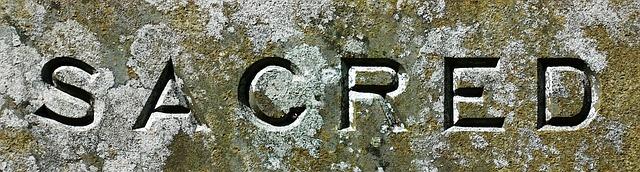
Exploring Sans Serif Fonts for Modern and Clean Presentations
Sans serif fonts are a popular choice for modern presentations due to their clean and sleek appearance. When exploring sans serif fonts, it’s essential to consider their readability, versatility, and overall aesthetic. Opting for a sans serif font can give your presentation a contemporary feel, making it visually appealing to your audience.
When selecting a sans serif font for your presentation, look for options that are easy to read, even from a distance. Fonts like Arial, Helvetica, and Calibri are popular choices for their simplicity and clarity. Additionally, consider experimenting with less common sans serif fonts like Gotham, Proxima Nova, or Montserrat for a more unique and personalized touch. Remember that consistency is key when using fonts in a presentation, so choose one or two sans serif fonts to maintain a cohesive look throughout your slides. Experiment with font sizes, bolding, and italicizing to create emphasis and hierarchy within your content. By carefully selecting and utilizing sans serif fonts, you can elevate the visual impact of your presentation and create a memorable experience for your audience.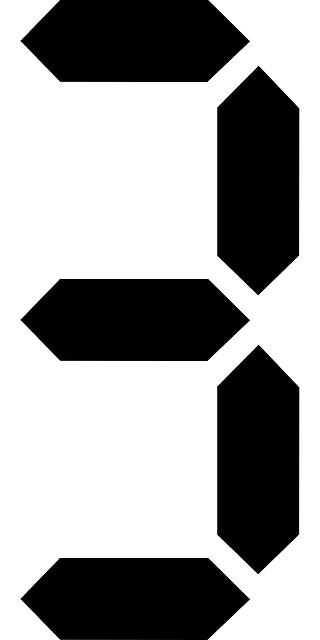
Utilizing Display Fonts to Add Personality and Creativity
When it comes to design, utilizing display fonts can truly elevate your project and add a touch of personality and creativity. These unique fonts are meant to be eye-catching and make a statement, making them perfect for headings, logos, and other design elements. With a wide variety of styles and options available, you can easily find a display font that matches the tone and style of your project.
One of the key benefits of using display fonts is their ability to instantly grab the viewer’s attention and create a lasting impression. Whether you’re looking to add a whimsical touch to a poster or make a bold statement with a logo, a well-chosen display font can help convey your message in a visually appealing way. By experimenting with different fonts and styles, you can easily inject creativity and personality into your designs, making them stand out from the crowd. When used thoughtfully, display fonts have the power to transform a mundane design into a work of art that captures the essence of your brand or message.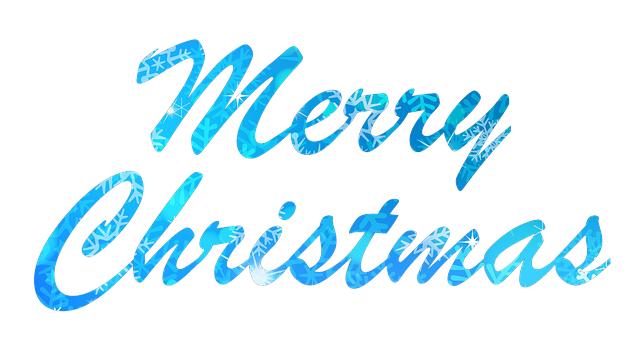
Incorporating Script Fonts for a Stylish and Elegant Touch
When it comes to adding a touch of style and elegance to your design projects, incorporating script fonts can be a game-changer. Script fonts are known for their graceful and flowing characters that give a sophisticated and polished look to any text. Whether you’re designing a wedding invitation, a logo, or a website, using script fonts can instantly elevate the overall aesthetic of your design.
When choosing script fonts, it’s important to consider the overall tone and style of your project. Opt for fonts that complement the theme and mood you’re trying to convey. Additionally, pay attention to readability – make sure the font is clear and easy to read, even in smaller sizes. Experiment with different script fonts to find the perfect match for your project. Bold and italicize certain words or phrases to draw attention to key elements of your design. Play around with different font sizes and spacing to create a visually appealing layout that catches the eye of your audience.
Q: Are there any font styles to avoid in presentations?
A: Avoid using overly decorative or hard to read fonts, as well as fonts that may be distracting or inappropriate for the content. Stick to simple, clean, and professional fonts for the best results.
Wrapping Up
In conclusion, choosing the right font is crucial for captivating presentations. Experiment with these Canva fonts to engage your audience effectively.